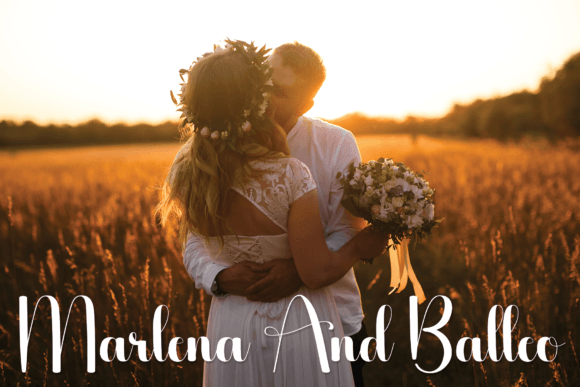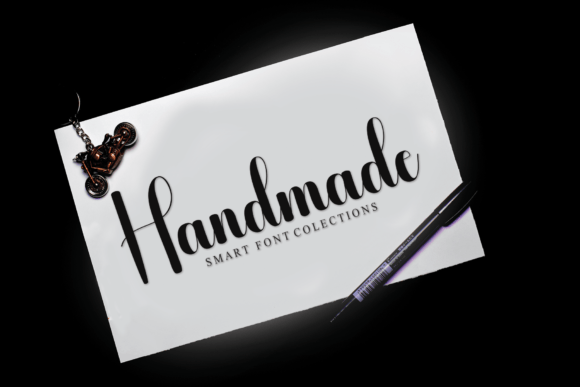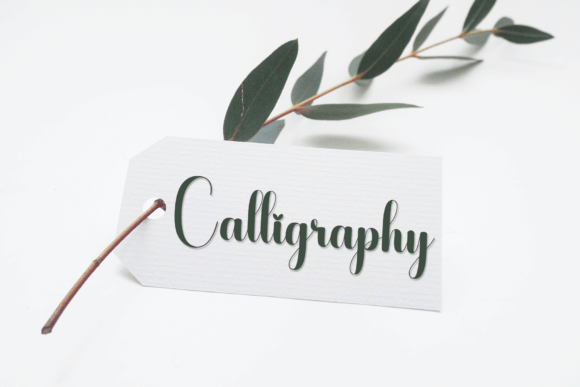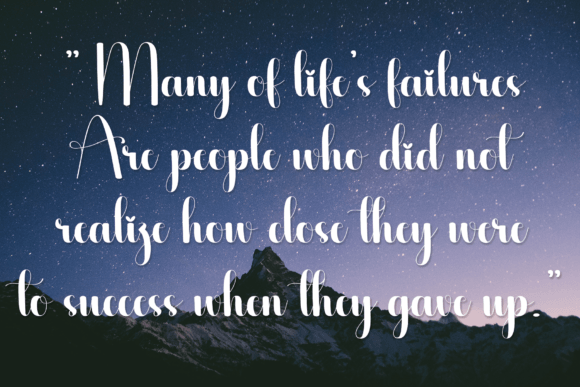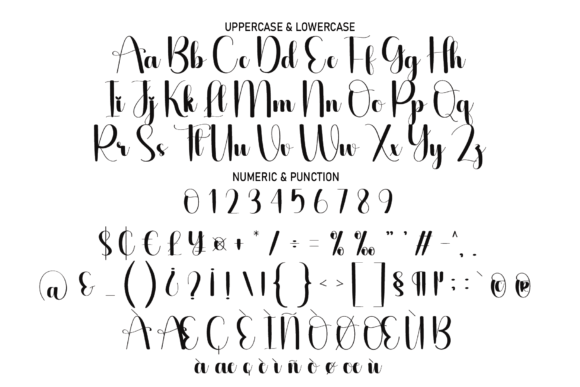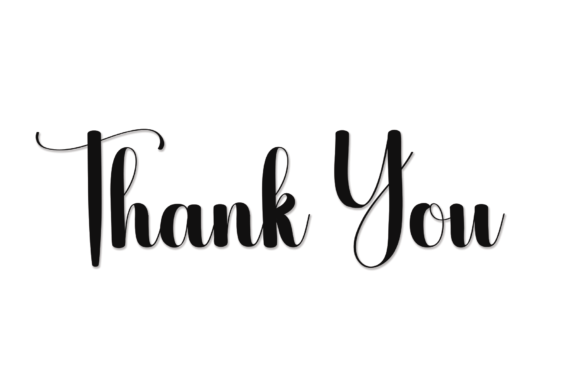
Unleash Your Creativity with Happy Font
Remember that moment when you stumbled upon the perfect font, and your design came alive? It’s like finding a missing piece of a puzzle, and everything falls into place. For designers, discovering the right font can be a game-changer. It’s the difference between a good design and a great one.
Meet Happy Font, a beautiful, flowing handwritten font that exudes elegance and sophistication. Its unique style is perfect for creating stunning designs that leave a lasting impression. Whether you’re working on a branding project, a wedding invitation, or a social media campaign, Happy Font is the ideal choice.
What makes Happy Font so valuable for designers is its timeless appeal and versatility. It’s a font that can be used for various projects, from modern to traditional, and always looks fresh and appealing. With Happy Font, you can create designs that are both visually stunning and emotionally resonant.
Key Features of Happy Font
- Unique Characteristics: Happy Font features a playful, cursive script with a mix of rounded and pointed shapes, making it perfect for creating a friendly and approachable atmosphere in designs.
- Kerning and Ligatures: Happy Font includes advanced kerning and ligature pairs, ensuring smooth text rendering and a polished appearance in digital and print designs.
Designer Review: Happy Font
I recently had the chance to work with Happy Font, and I must say, it’s a fun and playful addition to any design project. ✨ Here are a few things that really stood out to me:
- Wide character set: Happy Font has a great selection of characters, including a wide range of languages and special characters.
- Highly legible: The font is incredibly easy to read, even at small sizes.
- Customizable: Happy Font offers a range of customization options, including different weights and styles.
However, I did encounter a few limitations that prevented me from giving it a full 5-star review: ⚠️
- Limited bold weight options: While Happy Font offers a range of light and regular weights, the bold weight options are a bit limited.
- Not ideal for formal designs: While Happy Font is perfect for playful and casual designs, it may not be the best choice for more formal projects.
Overall, I would give Happy Font 4 out of 5 stars. It’s a fun and versatile font that’s perfect for a wide range of projects. With a few more bold weight options, it could be a true standout in the world of fonts.
Happy Font Practical Application Guide
Tips for Getting the Most Out of Happy Font
Use Happy Font to create eye-catching headlines and titles.
– Experiment with different font sizes and colors to create visual interest.
– Combine Happy Font with other fonts to create a unique and playful look.
– Use Happy Font to add a touch of whimsy and personality to your designs.
Happy Font is perfect for:
– Party invitations and decorations
– Children’s books and educational materials
– Branding and marketing materials for fun and playful businesses
Q: How do I customize Happy Font to fit my design needs?
Happy Font is a highly customizable font, with features like ligatures, alternates, and stylistic sets. To access these features, you’ll need to use a font editor or a design application that supports OpenType fonts, such as Adobe Illustrator or InDesign. Our documentation provides more information on how to customize Happy Font to fit your design needs.